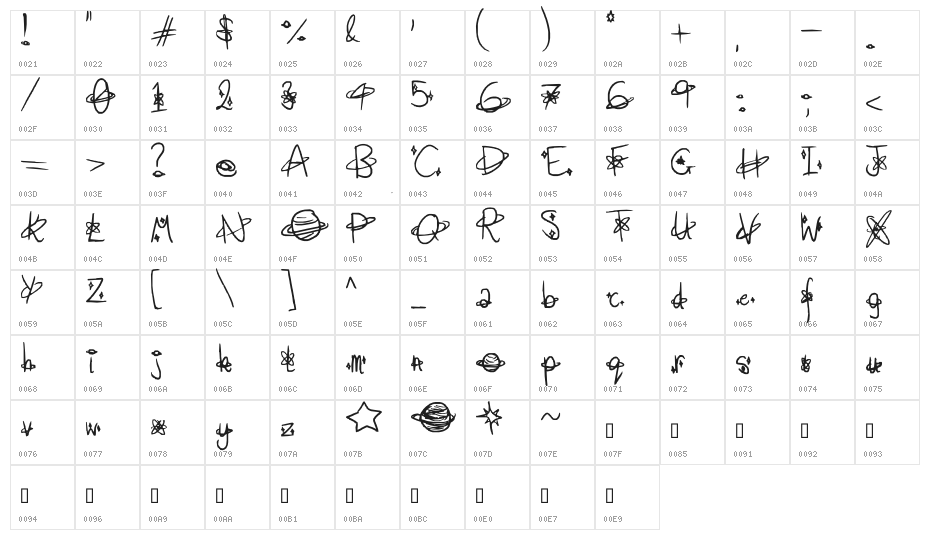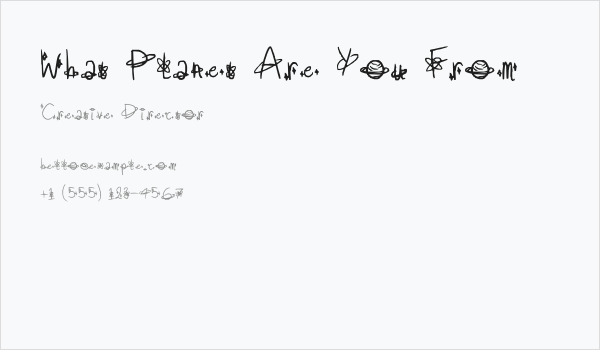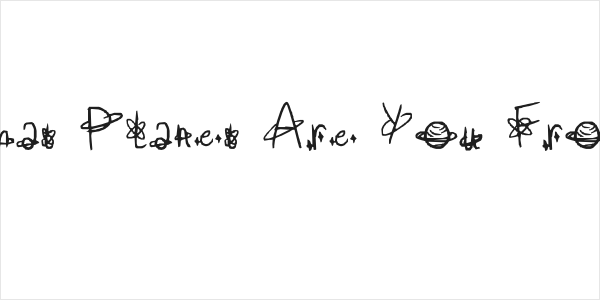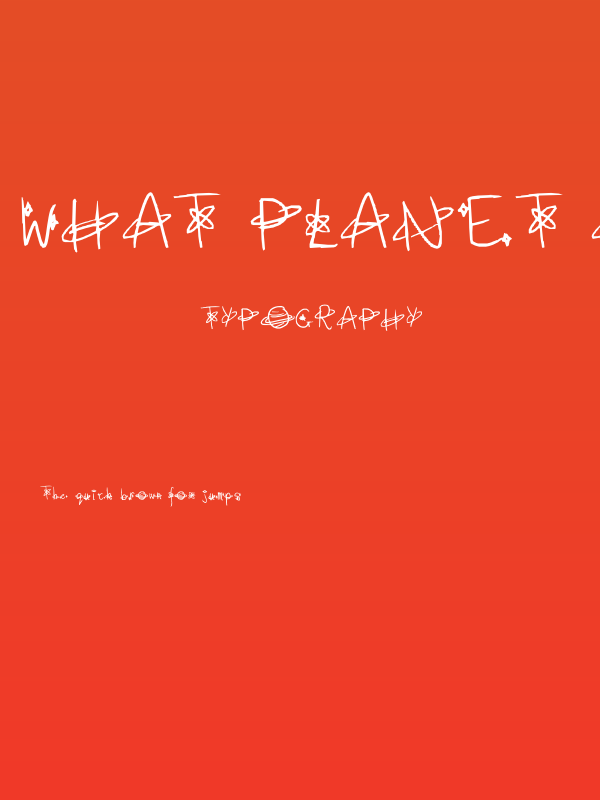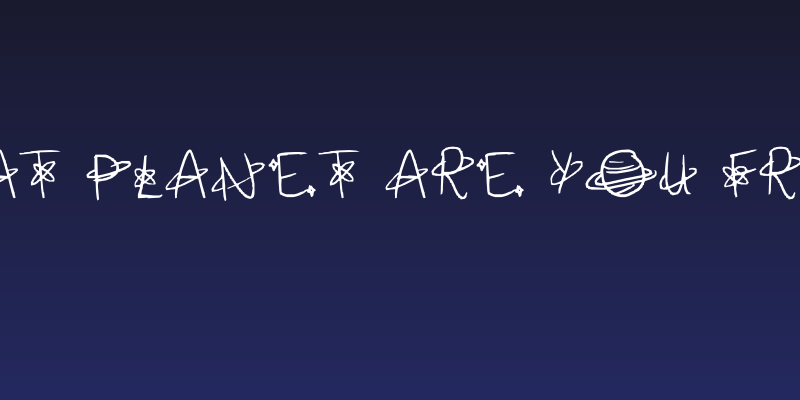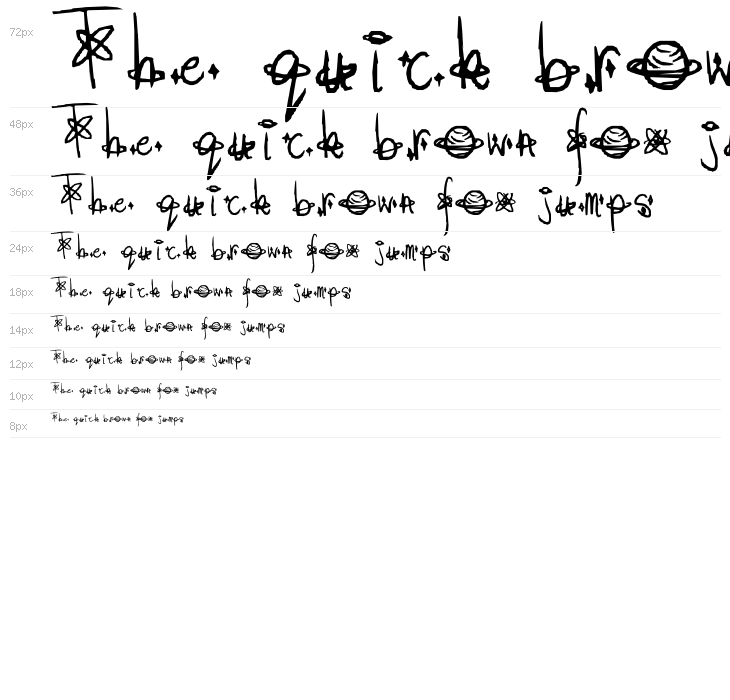
What Planet Are You From Font
What Planet Are You From Description
This font features a whimsical and playful design, incorporating planetary and celestial motifs into each character. The uppercase and lowercase letters are adorned with stars, rings, and orbit-like elements, giving them a unique and decorative appearance. Numbers and special characters follow the same theme, making the entire set cohesive and visually intriguing. The style is reminiscent of a cosmic or space-themed aesthetic, perfect for projects that require a touch of fantasy or science fiction. The characters are bold and have a hand-drawn quality, adding to their charm and uniqueness.
WHAT-PLANET-ARE-YOU-FROM UPPERCASE
WHAT-PLANET-ARE-YOU-FROM LOWERCASE
WHAT-PLANET-ARE-YOU-FROM OTHER CHARS
| Proposed Projects | Ideal for children's books, sci-fi posters, themed party invitations, and creative logos. |